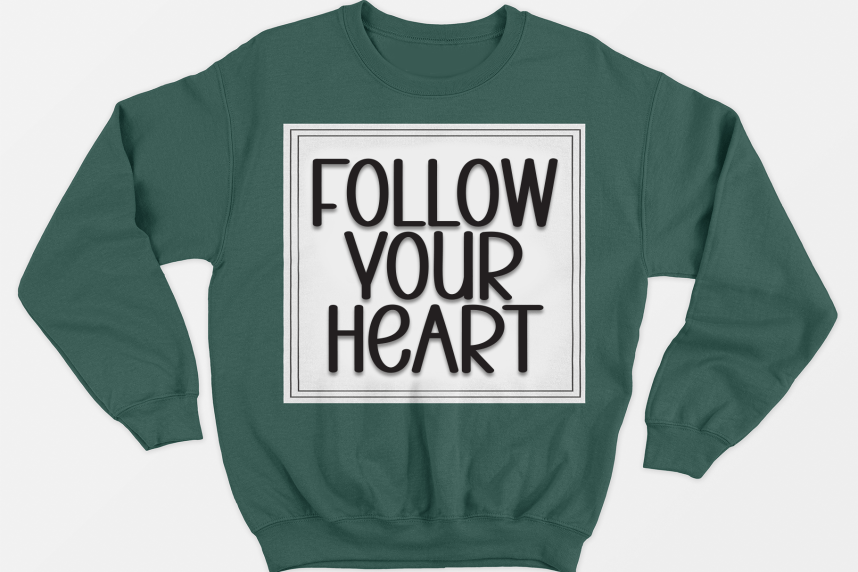
Mockup Christmas – Creative Style Font
Mockup Christmas – Creative Style Font, special creative products for you, our products will give you an extraordinary experience. the latest style letters are perfect for wall displays, wedding invitations, social media post logos, advertisements, product packaging, product designs, labels, photography, watermarks, invitations, stationery, and any project that requires taste handwriting.